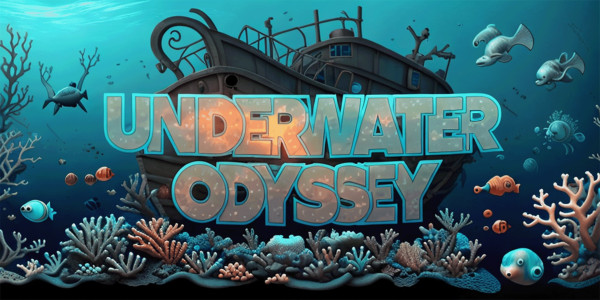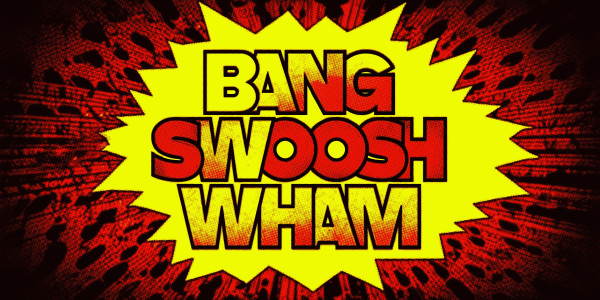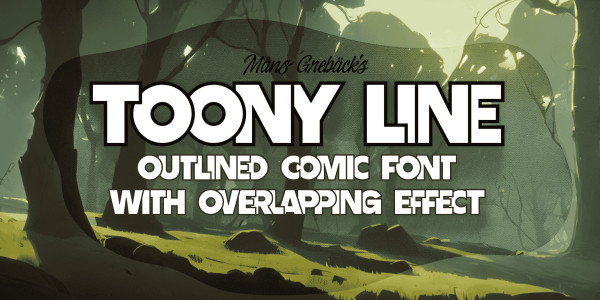
Toony Line Font is a comic font from the golden age of cartoons. Funny and loony, the font channels playful tunes while its sharp, sans-serif characters dance on the page with a joy reminiscent of our favorite animated classics. There’s a hint of Mickey’s magic, a dash of Disney dreaminess, and the unapologetic boldness of comic strips and street art.